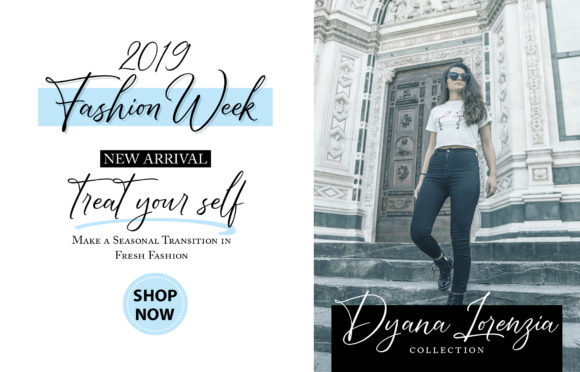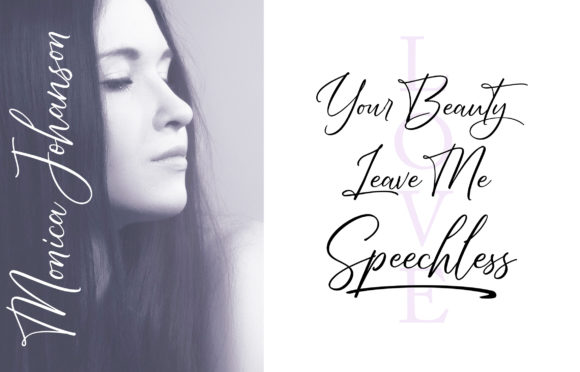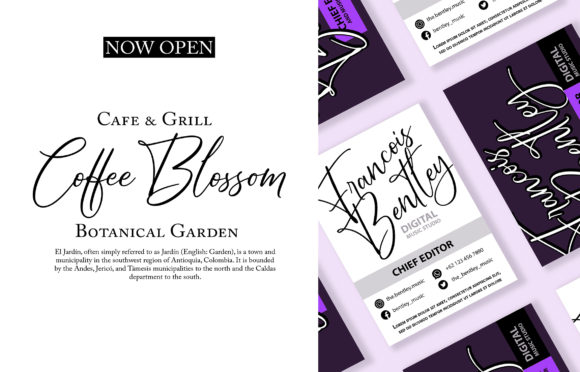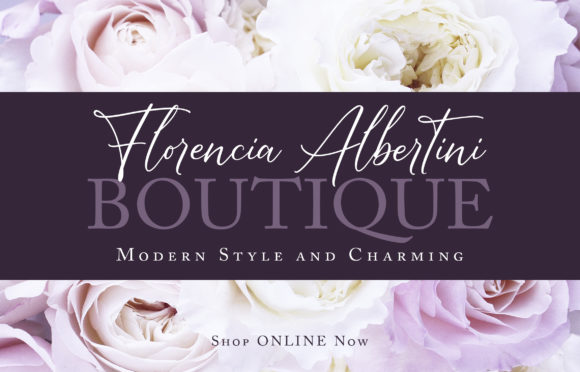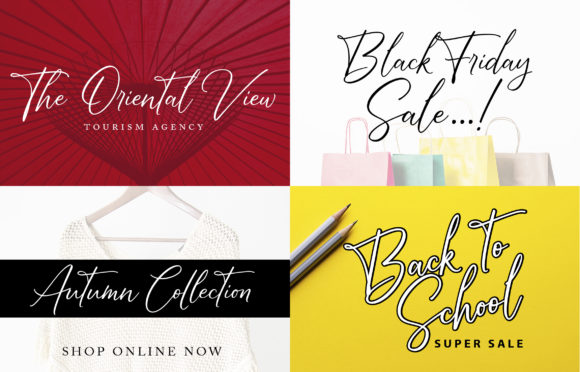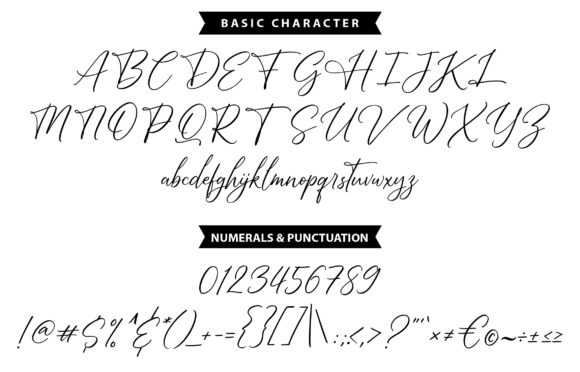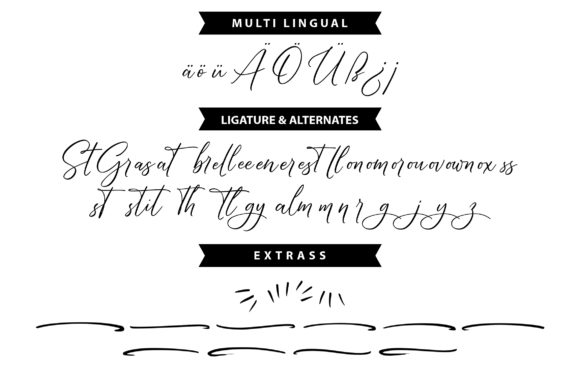
Bright Daily Font
About Bright Daily Font
Bright Daily is an incredibly beautiful and cheerful script font that will deliver confidence and style to any design!